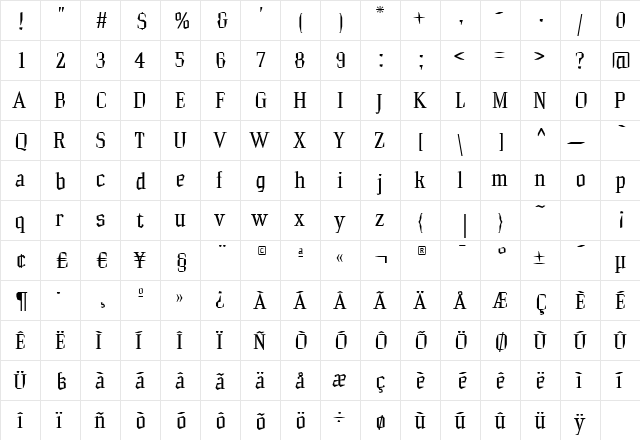
HammerheadRegular Regular
Design Context for HammerheadRegular Typeface
HammerheadRegular is a composed and adaptable typeface that performs quietly and consistently across a wide range of design contexts.